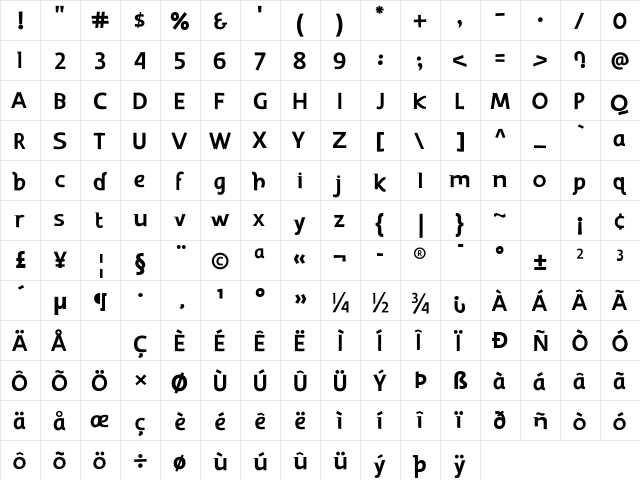
Kakawate Font Regular
Design Context for Kakawate Font Typeface
Kakawate Font offers clean, dependable letterforms without strong stylistic allegiance, making it a practical choice for designers who need flexibility.